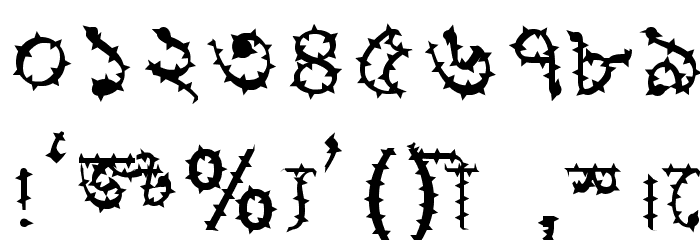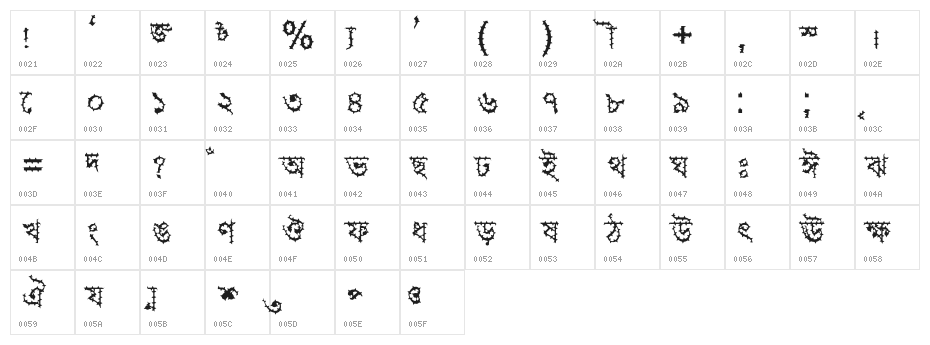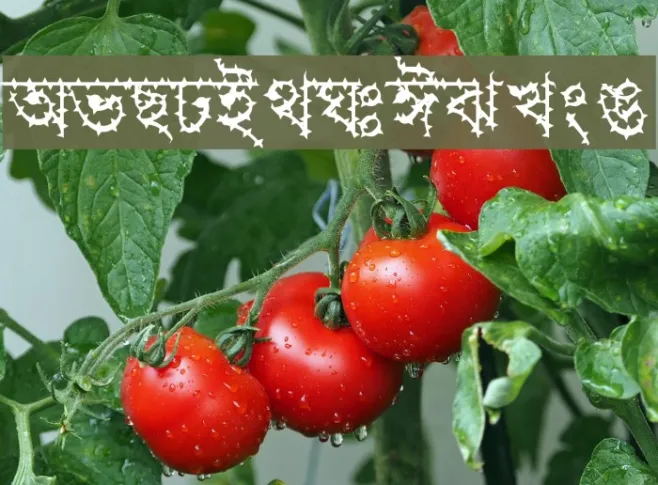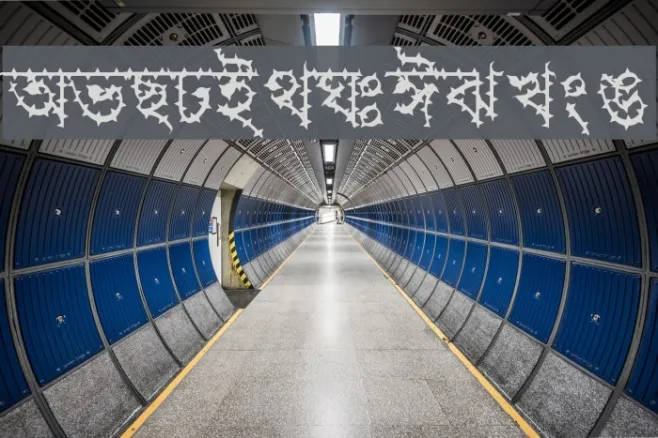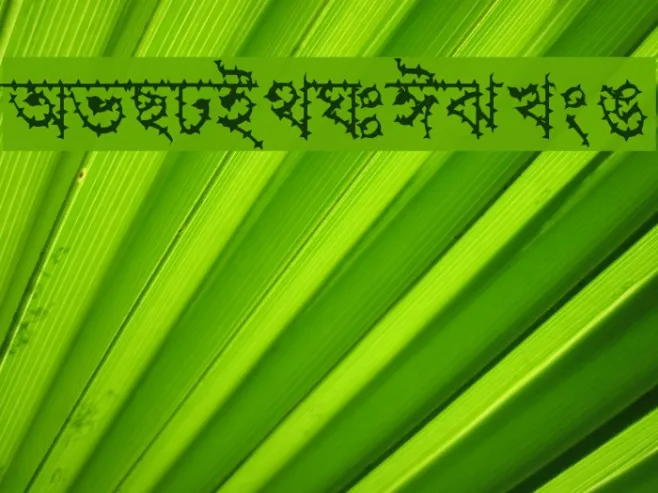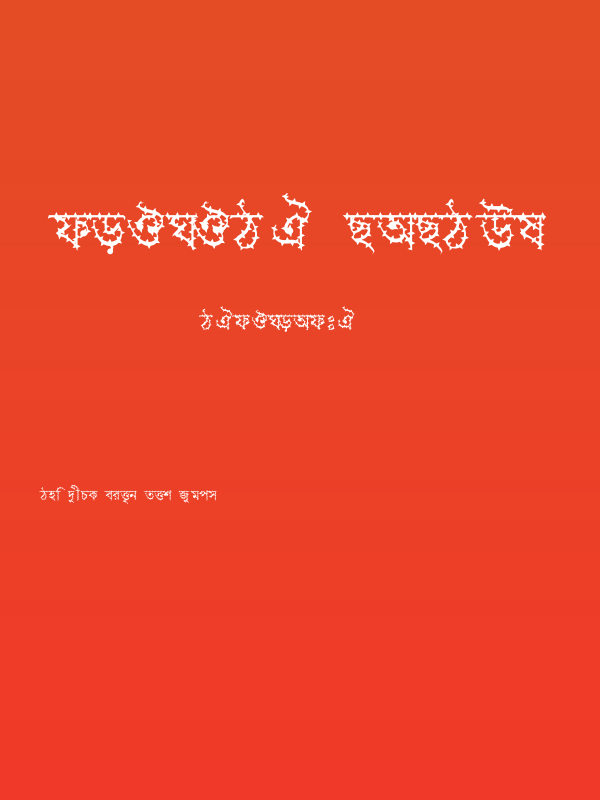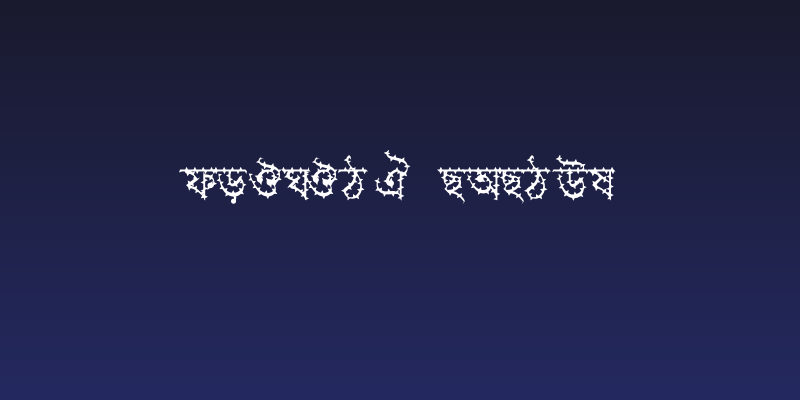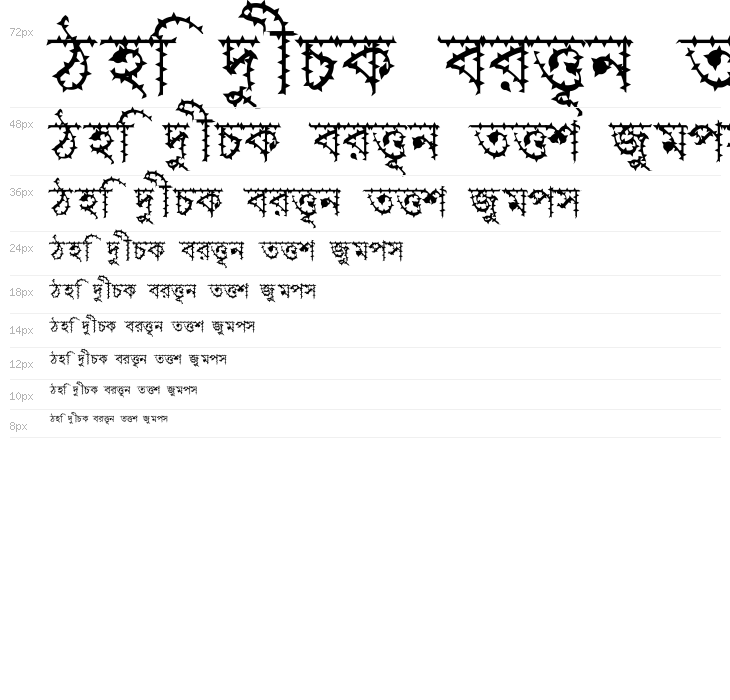
Progoty Cactus Font
Progoty Cactus Description
This font features a unique and striking design, characterized by thorn-like protrusions extending from each character, creating a bold and edgy appearance. The letters are intricately detailed, with sharp angles and pointed edges that give the font a distinctive, aggressive look. The overall style is reminiscent of a cactus, with each character appearing as if it is covered in spikes. This design choice makes the font highly decorative and visually impactful, suitable for projects that require a strong visual statement. The spacing between characters is relatively tight, enhancing the compact and dense appearance of the text.
Proposed ProjectsIdeal for posters, album covers, or any design requiring a bold, eye-catching font.